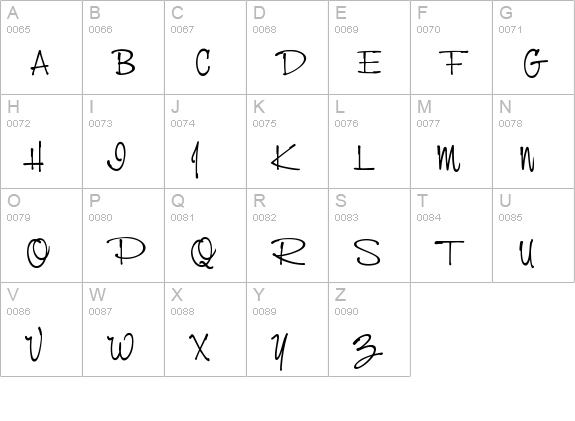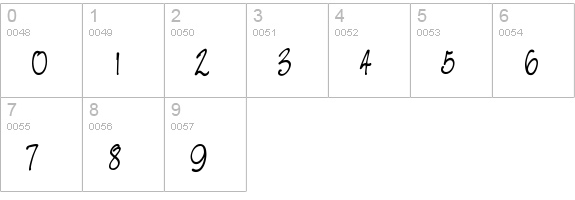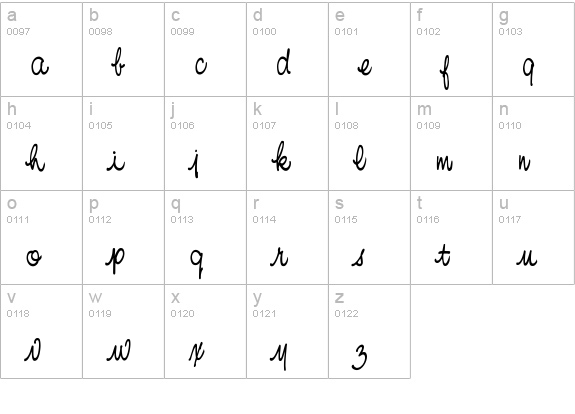
Nora Casual font is a charming and versatile typeface that exudes a casual and friendly vibe. With its smooth curves and playful design, this font is perfect for adding a touch of warmth and personality to any project. Whether you're designing a greeting card, crafting a logo, or creating social media graphics, Nora Casual is sure to make your text stand out. Best of all, Nora Casual font is available for free download at FontsMarket.com. This means you can easily access this delightful font and use it in your personal and commercial projects without any cost. Embrace the relaxed and approachable feel of Nora Casual font to bring a touch of whimsy to your designs. Download it now and let your creativity shine!